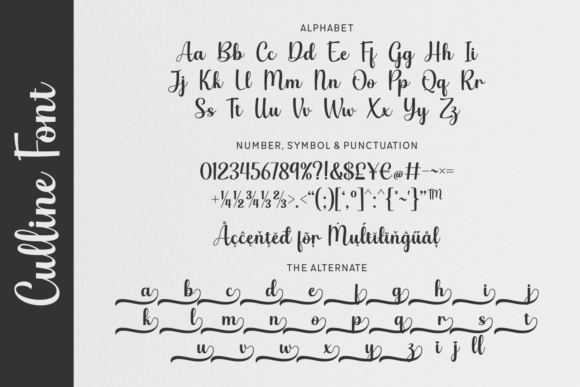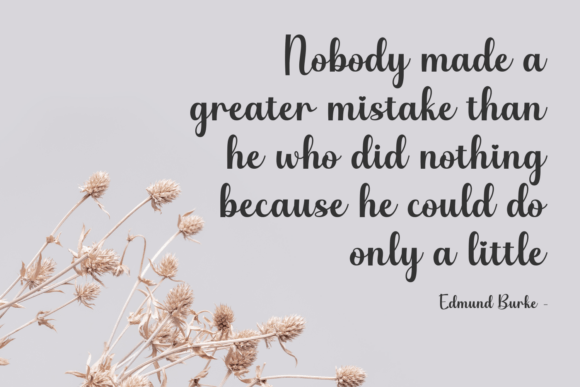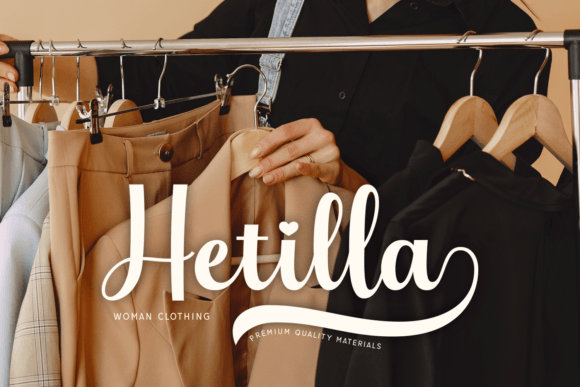
Culline Font: The Perfect Script Font for Romantic Designs
In the world of typography, fonts play a crucial role in conveying the tone and personality of a design. For designers and crafters looking for a modern script font that exudes elegance and romance, Culline Font is an excellent choice. With its smooth curves and playful heart detail, Culline is perfect for a variety of projects, including romantic designs, invitations, branding, and more.
What is Culline Font?
Culline Font is a modern script font that boasts smooth, flowing curves and a touch of playfulness. Its unique heart detail adds a romantic flair, making it ideal for designs that require a sense of love and elegance. Whether you’re working on a wedding invitation, a branding project, or a romantic advertisement, Culline Font is sure to make your design stand out.
Key Features of Culline Font
- Smooth Curves: Culline Font features smooth, flowing curves that give it a modern and elegant look.
- Playful Heart Detail: The font’s unique heart detail adds a playful touch, making it perfect for romantic designs.
- Modern Script Style: Culline Font is a modern script font that is both stylish and versatile.
- Elegant and Refined: The font’s elegant and refined appearance makes it suitable for high-end designs and branding projects.
Use Cases for Culline Font
Culline Font is a versatile font that can be used for a variety of design projects, including:
- Wedding Invitations: The font’s romantic and elegant appearance makes it perfect for wedding invitations and other wedding-related designs.
- Branding: Culline Font is suitable for branding projects that require a touch of elegance and sophistication.
- Romantic Advertisements: The font’s playful heart detail and smooth curves make it ideal for romantic advertisements and marketing campaigns.
- Stationery: Culline Font can be used for designing stationery, such as greeting cards, thank-you cards, and more.
Benefits of Using Culline Font
Using Culline Font in your design projects offers several benefits, including:
- Unique and Eye-Catching: The font’s unique heart detail and smooth curves make it stand out from other script fonts.
- Versatile: Culline Font can be used for a variety of design projects, from romantic designs to branding and marketing campaigns.
- Elegant and Refined: The font’s elegant and refined appearance makes it suitable for high-end designs and branding projects.
- Easy to Read: Culline Font is easy to read, making it perfect for designs that require a clear and concise message.
Tips for Using Culline Font
To get the most out of Culline Font, here are some tips to keep in mind:
- Use it Sparingly: Use Culline Font sparingly to add a touch of elegance and romance to your design.
- Pair it with Other Fonts: Pair Culline Font with other fonts to create a unique and visually appealing design.
- Experiment with Colors: Experiment with different colors to find the perfect combination that complements Culline Font.
- Keep it Simple: Keep your design simple and clean to let Culline Font shine.
Culline Font is a modern script font that is perfect for designers and crafters looking for a touch of elegance and romance in their designs. With its smooth curves, playful heart detail, and versatile style, Culline Font is suitable for a variety of design projects, from wedding invitations to branding and marketing campaigns. By following the tips outlined above, you can get the most out of Culline Font and create stunning designs that leave a lasting impression.